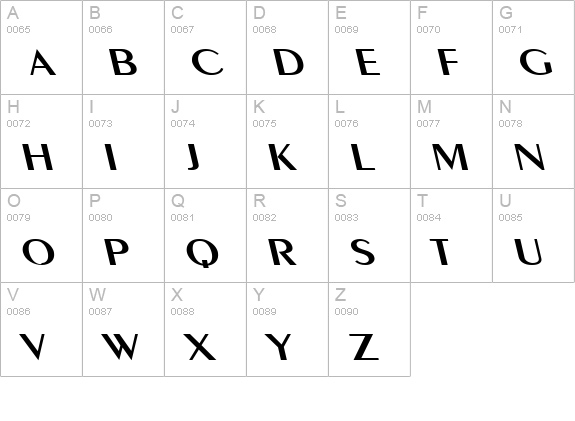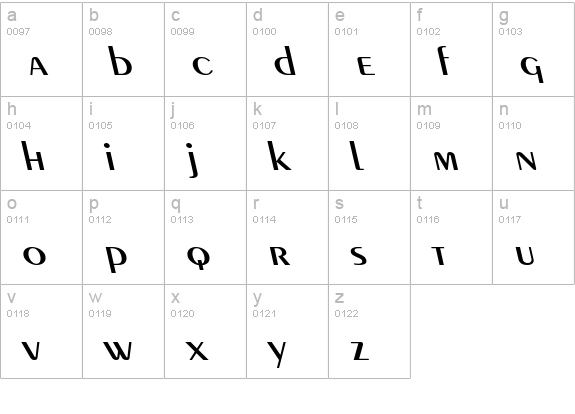
Pare Wide Reverse Italic Font Details
Pare Wide Reverse Italic is a distinctive, extended-width, italic variant in the Pare typeface family \xE2\x80\x94 well suited to design and typography projects.
Introducing Pare Wide Reverse Italic, a captivating and versatile font that exudes elegance and sophistication. Its unique reverse italic design adds a touch of modernity to any project, while its wide proportions create a sense of balance and harmony. Pare Wide Reverse Italic not only offers a visually striking appearance but also ensures optimal legibility, making it suitable for a wide range of design applications. Whether you're designing a logo, creating eye-catching headlines, or composing a stylish invitation, this font will effortlessly elevate your designs to new heights. With its flawless curves and well-crafted details, Pare Wide Reverse Italic captures attention and leaves a lasting impression. Its distinct personality shines through, making it a standout choice for both print and digital projects. Its versatility allows it to adapt to various design styles, from elegant and sophisticated to bold and contemporary. But what's even more exciting is that Pare Wide Reverse Italic is available for free download at FontsMarket.com. Yes, you read that right! This stunning font, with all its exquisite features and endless creative possibilities, can be yours at no cost. FontsMarket.com is the go-to destination for font lovers, offering a vast collection of high-quality fonts, and Pare Wide Reverse Italic is no exception. Discover the power of Pare Wide Reverse Italic and unleash your creativity with this remarkable font. Download it for free at FontsMarket.com and witness how it transforms your designs from ordinary to extraordinary. Don't miss the opportunity to enhance your projects with this captivating and freely available font.